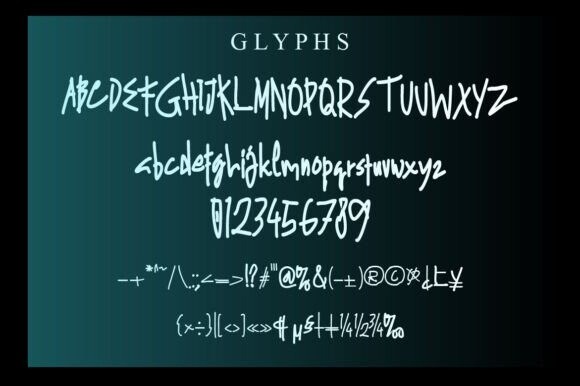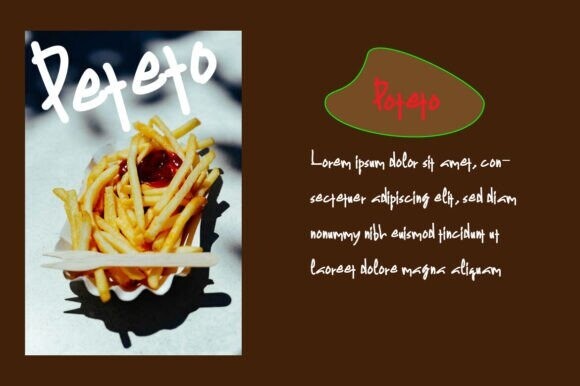
Siminah Font
Siminah font. this is fun handwritten font crated by gunaloecraft. This font is perfect for branding, logos, social media, prints, stickers, shirts, svg files and more.